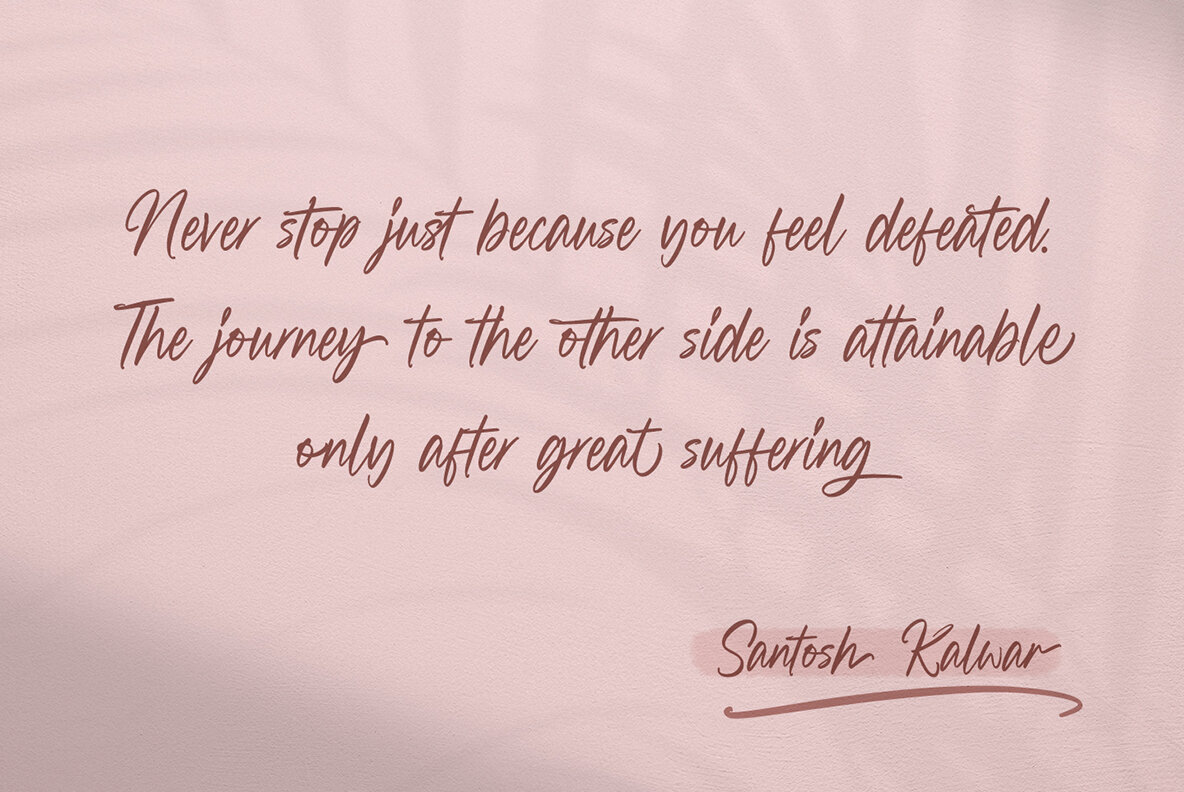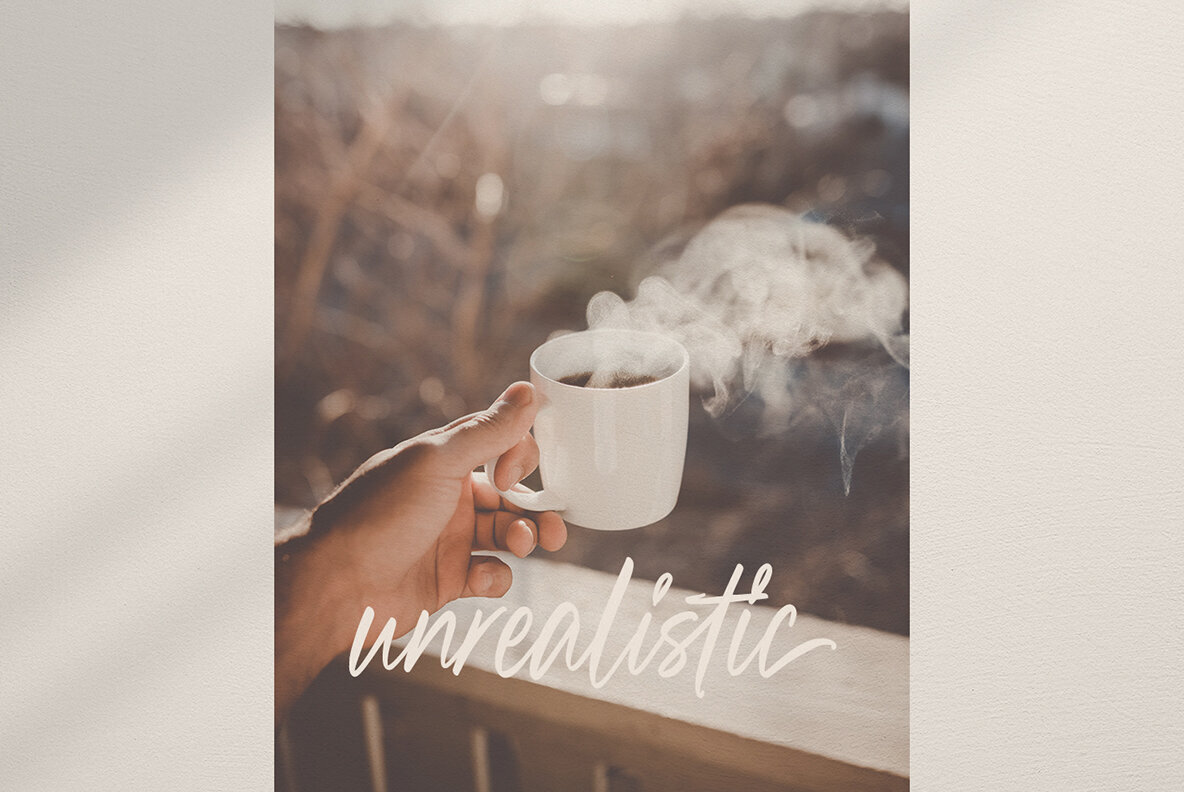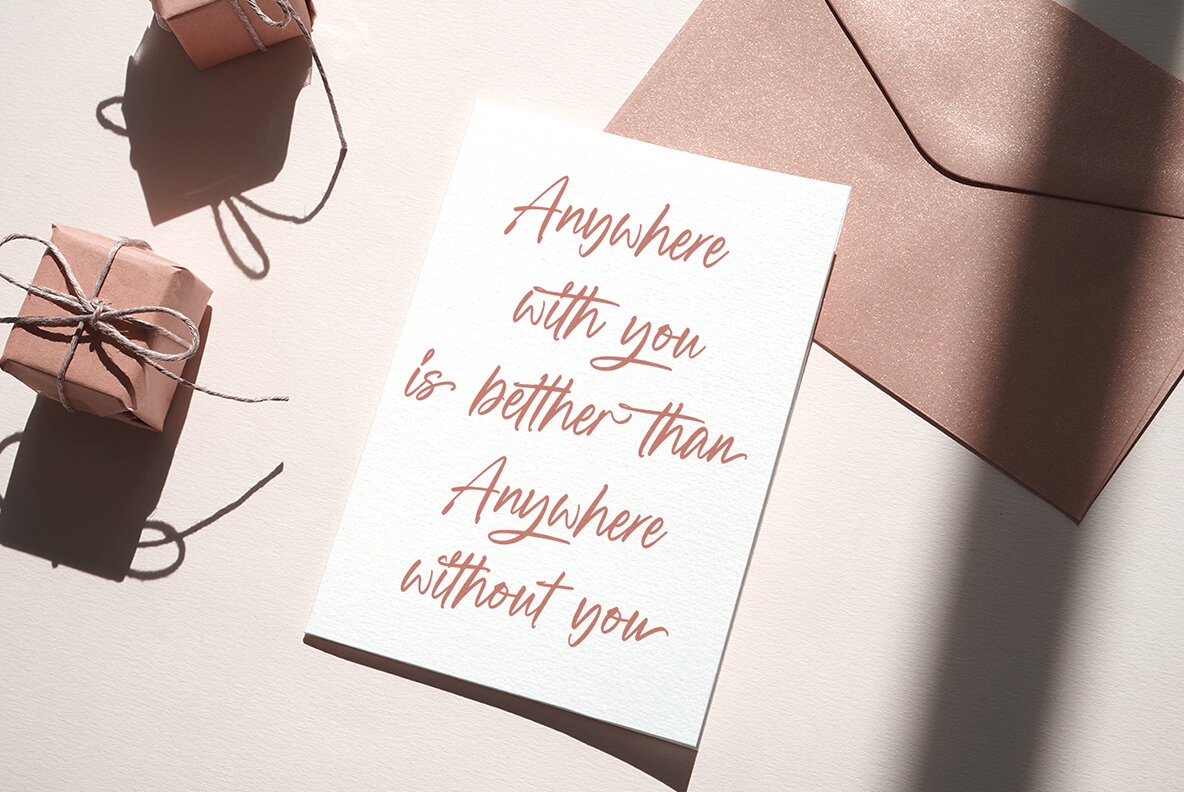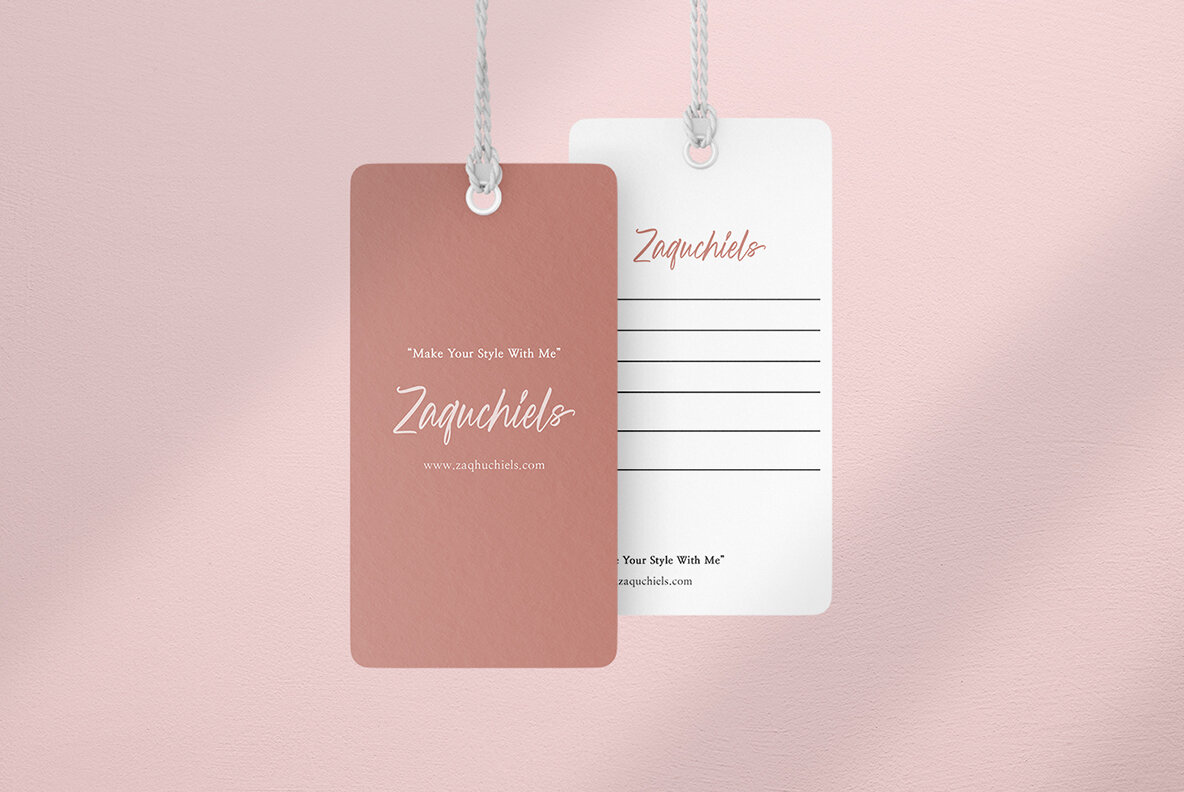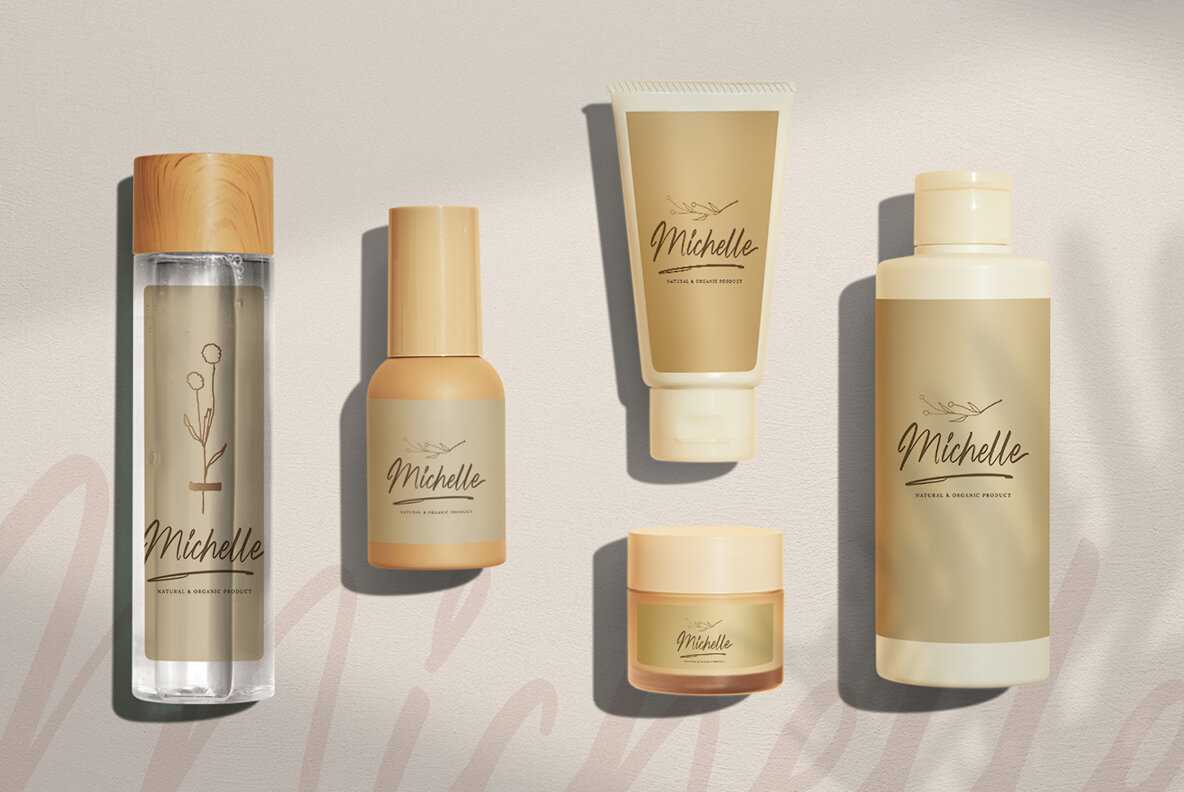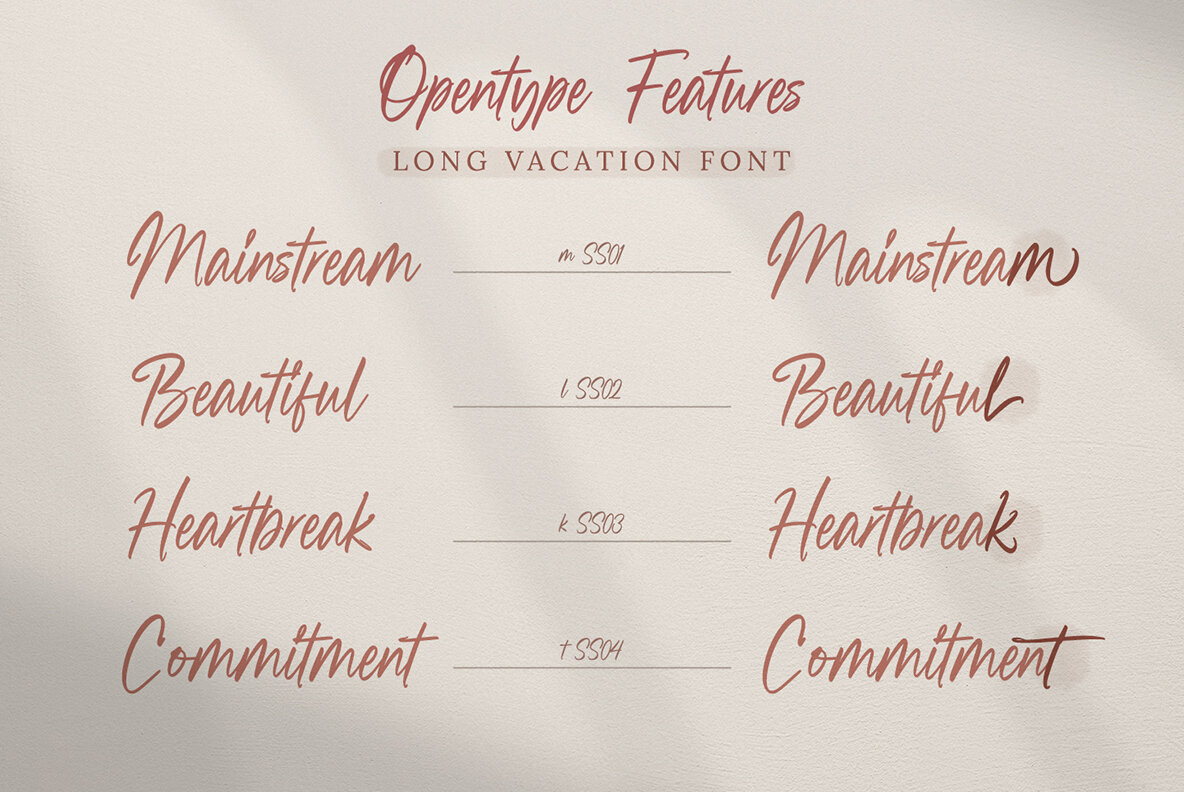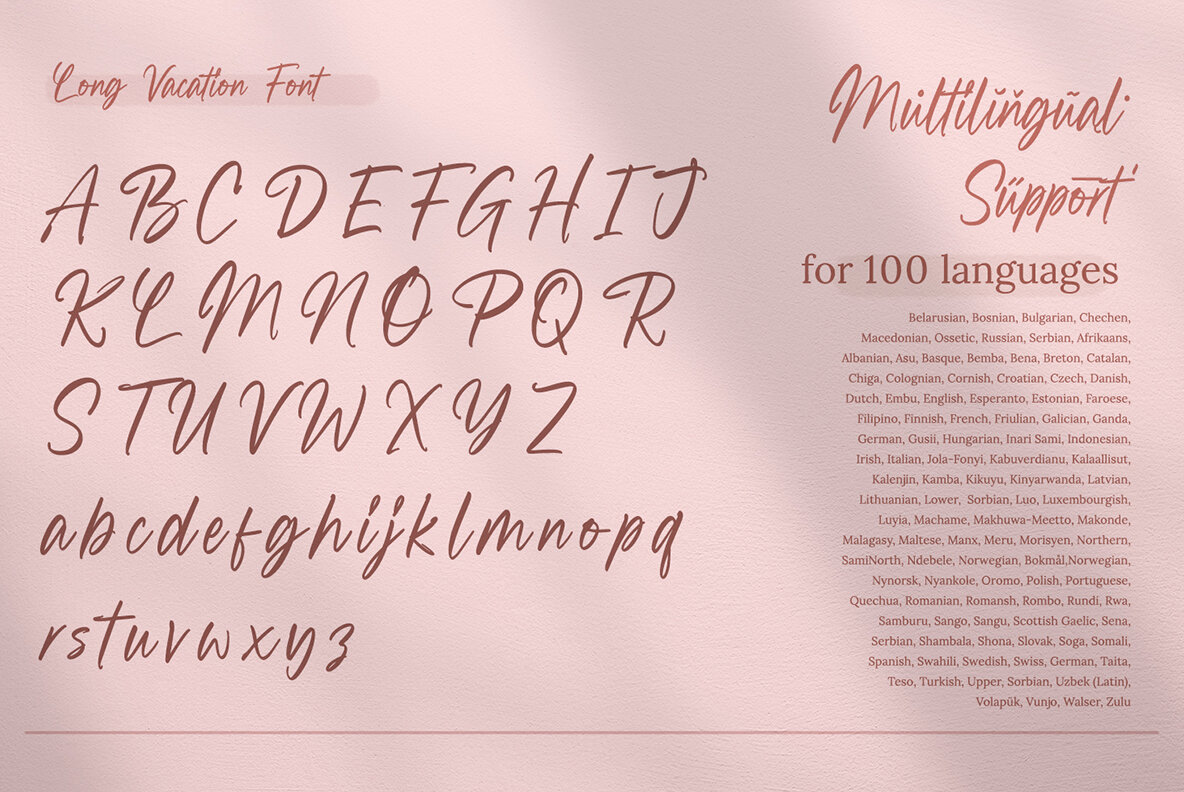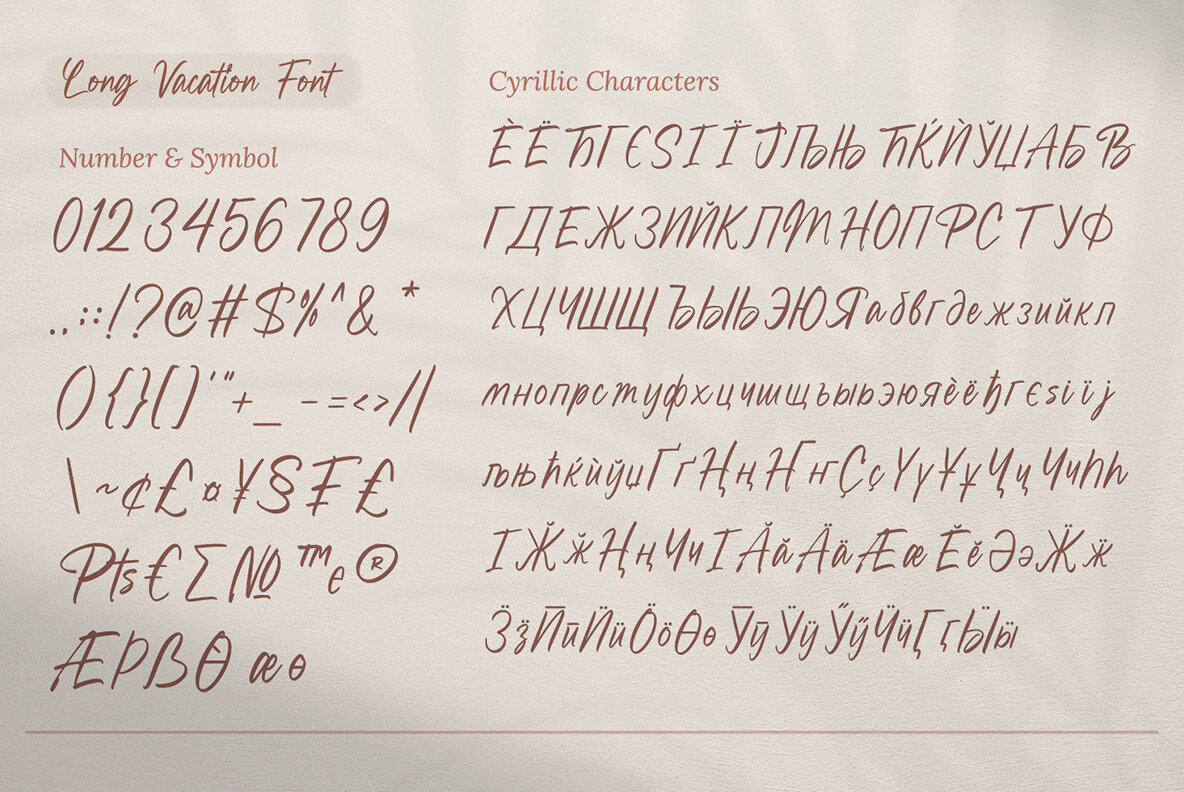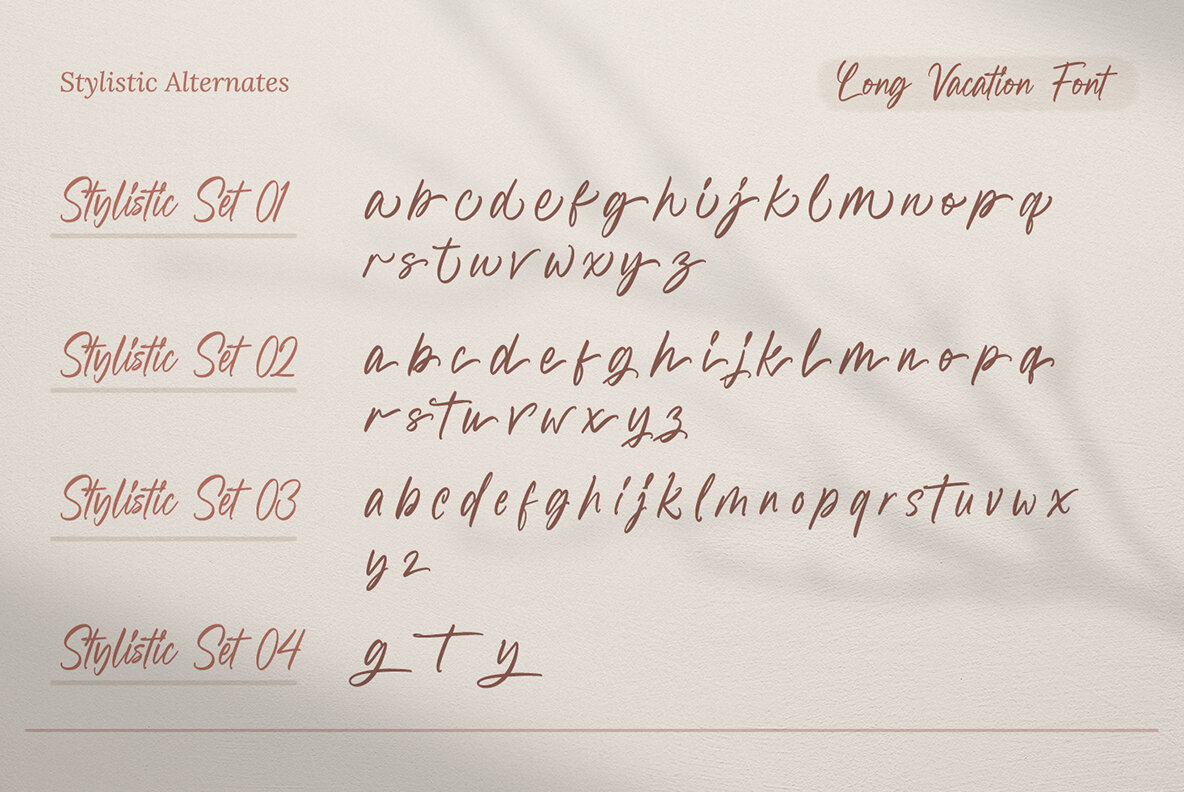
Long Vacation Font
Discover the charm of Long Vacation, a captivating handwritten font that balances style with readability. This font features intricate, interconnected lettering that creates a natural flow, bringing a unique, hand-drawn feel to your designs. With its high-contrast curves and detailed letterform, Long Vacation stands out while maintaining clarity, making it perfect for both large and small text applications.
Long Vacation is versatile, suitable for a variety of design projects including branding, posters, banners, invitations, greeting cards, and more. It comes with useful features like stylistic sets, multilingual support, PUA encoding, numerals, and punctuation. Whether you're designing magazine covers or social media graphics, this font seamlessly integrates into your projects, adding a personal touch and enhancing visual interest. Explore its potential by reviewing the font's preview and see how it can enrich your creative works.